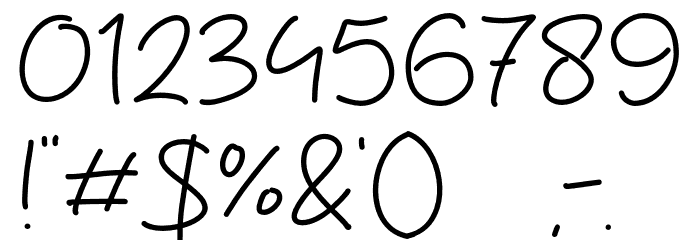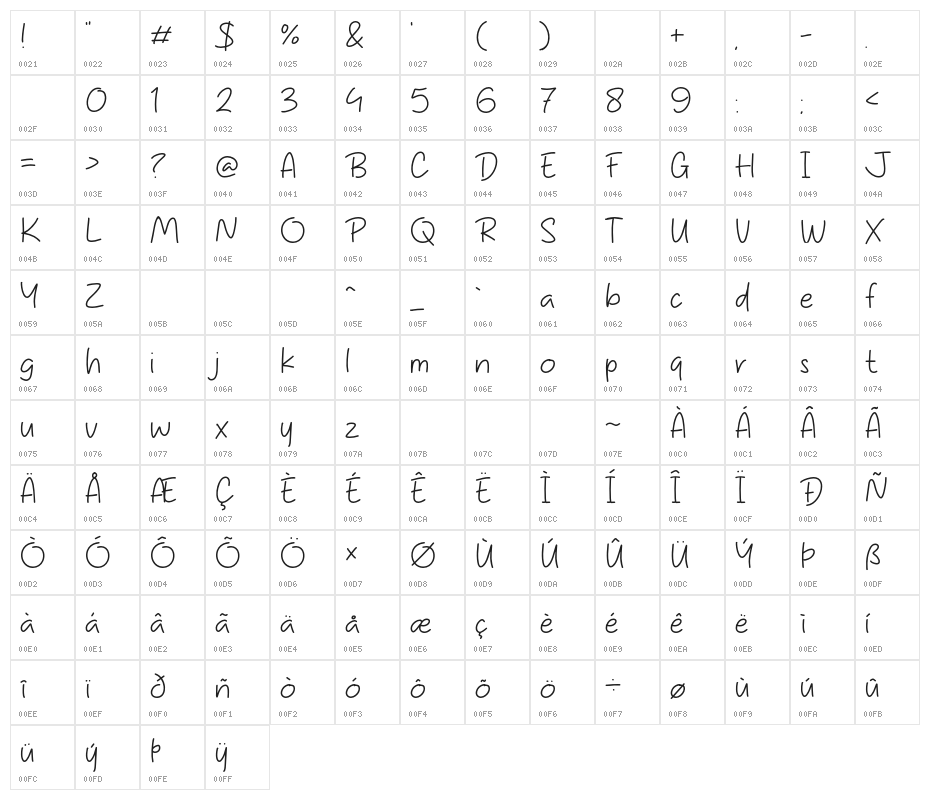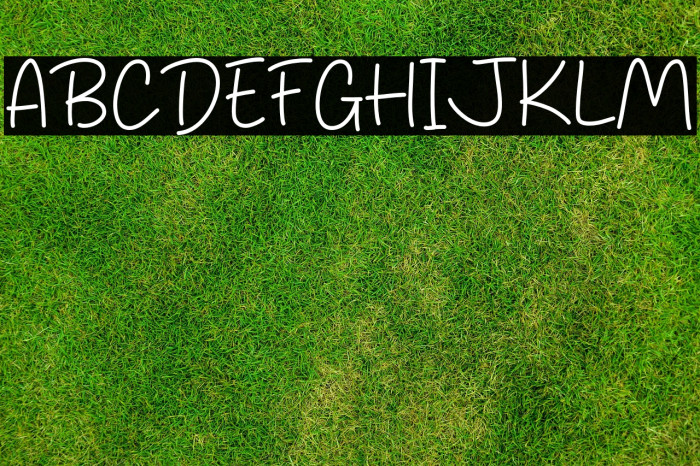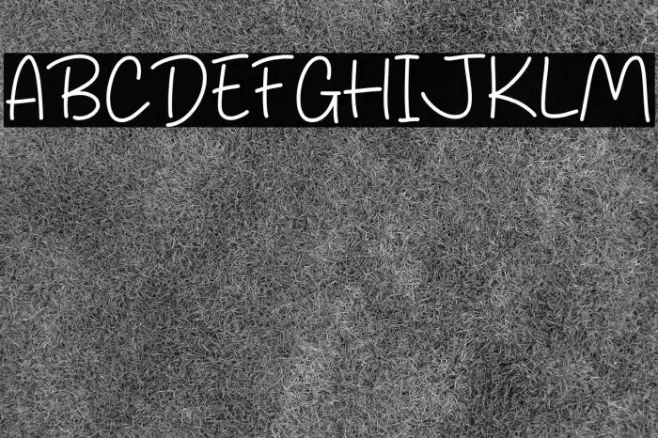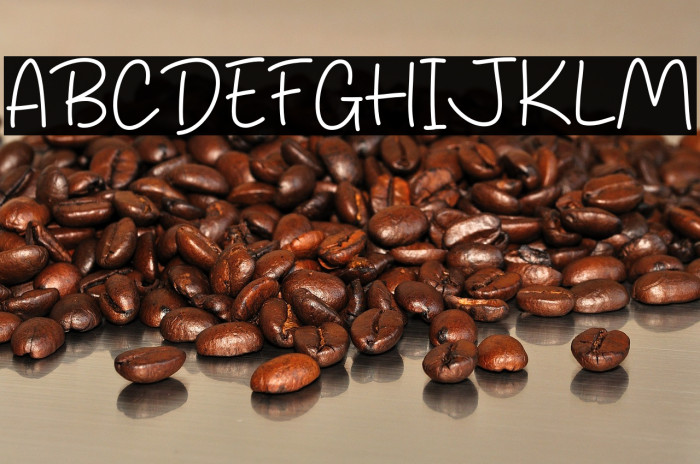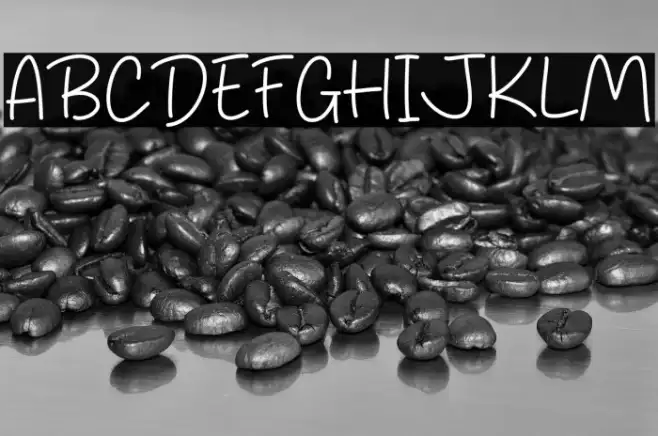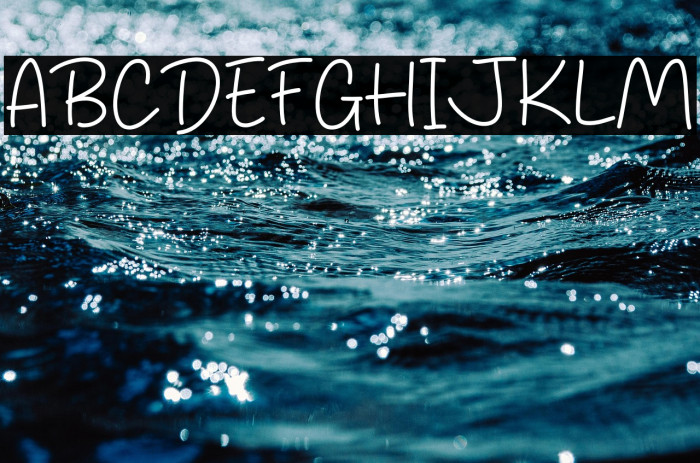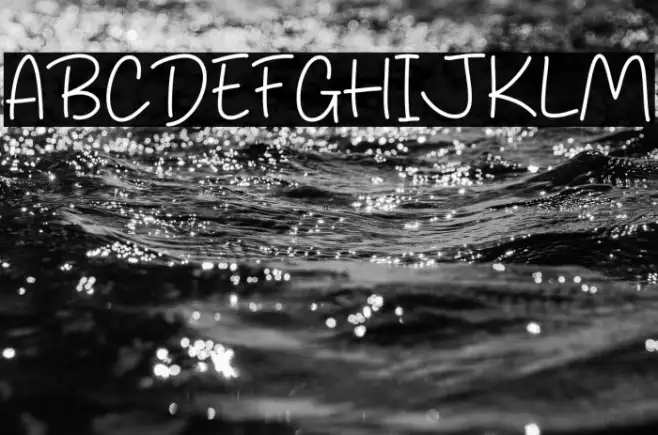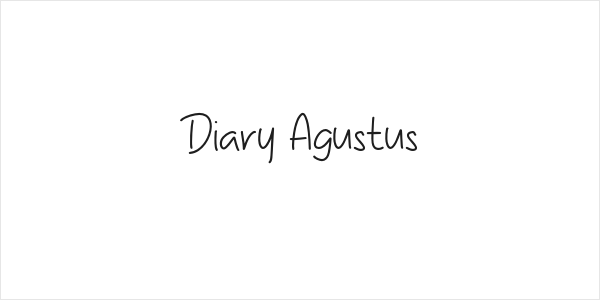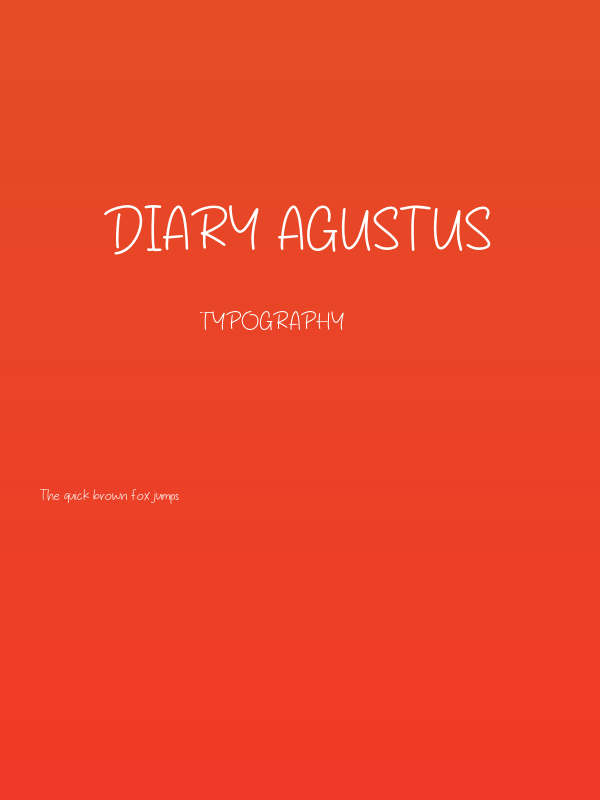
Diary Agustus Font
Diary Agustus Description
This font exudes a casual and friendly handwritten style, characterized by its smooth curves and slightly irregular strokes that mimic natural handwriting. The letters are well-spaced, providing a clear and readable appearance. The uppercase letters maintain a consistent height, while the lowercase letters exhibit a playful bounce, adding to the font's charm. Numbers and special characters are designed to complement the overall aesthetic, ensuring versatility across different uses. The font's informal yet legible style makes it suitable for a variety of creative projects.
| Overall Style | Casual, Friendly |
| Proposed Projects | Ideal for personal diaries, casual invitations, greeting cards, and creative social media graphics. |